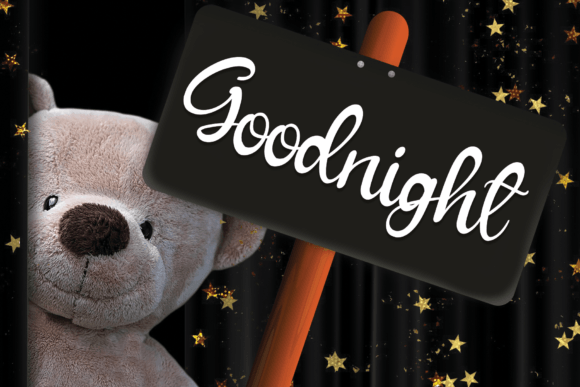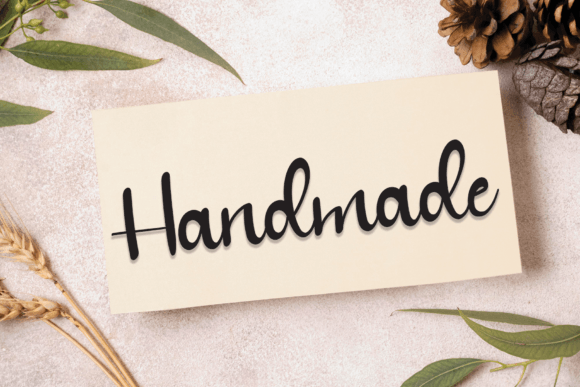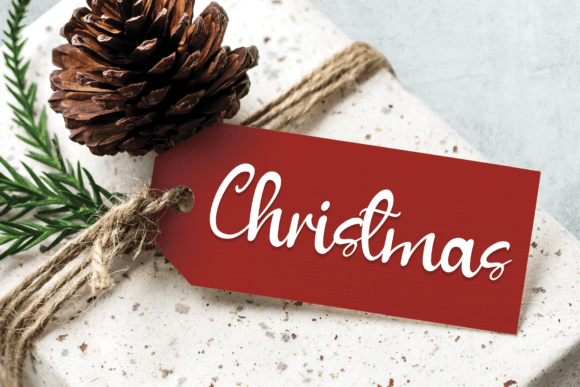
The Ultimate Guide to Barbie Font: A Fun and Friendly Handwritten Font
I’ll never forget the time I was working on a craft project for a client’s birthday party, and I just couldn’t find the right font to match the playful vibe of the design. The project was a customized banner with the party’s theme, and I wanted a font that would capture the fun and friendly spirit of the celebration. That’s when I stumbled upon the Barbie font, and it instantly became my go-to choice. In this article, I’ll share my experience with this amazing font, its features, and how to make the most of it in various design platforms.
An Honest Review of Barbie Font
The Barbie font has quickly become a favorite of mine, and here’s why:
- ✨ Fun and playful: The Barbie font has a lively, handwritten feel that’s perfect for crafts, digital designs, and presentations.
- ✅ Versatile: This font can be used for various occasions, from birthday parties to weddings, and even everyday projects.
- 💕 Easy to read: Despite its playful nature, the Barbie font is surprisingly legible, making it suitable for both headings and body text.
However, I do have to mention a few minor quirks:
- 🤔 Limited formal use: While the Barbie font is amazing for informal projects, it might not be the best choice for formal or professional designs.
- ⚠️ Some letter spacing issues: In certain situations, the letter spacing can be a bit inconsistent, which may require manual adjustments.
- Experiment with OpenType features, such as stylistic alternates and glyphs, to add more personality to your text.
- Explore the font’s OpenType features, such as swashes and stylistic sets, to add more flair to your design.
The Backstory of Barbie Font
The Barbie font was designed with the intention of creating a fun and friendly handwritten font that would inspire creativity and playfulness. The designer aimed to craft a font that would be perfect for a variety of projects, from crafts to digital designs, and the result is a font that’s both versatile and delightful.
| What is the Barbie font best suited for? | The Barbie font is perfect for informal projects, such as crafts, digital designs, and presentations. |